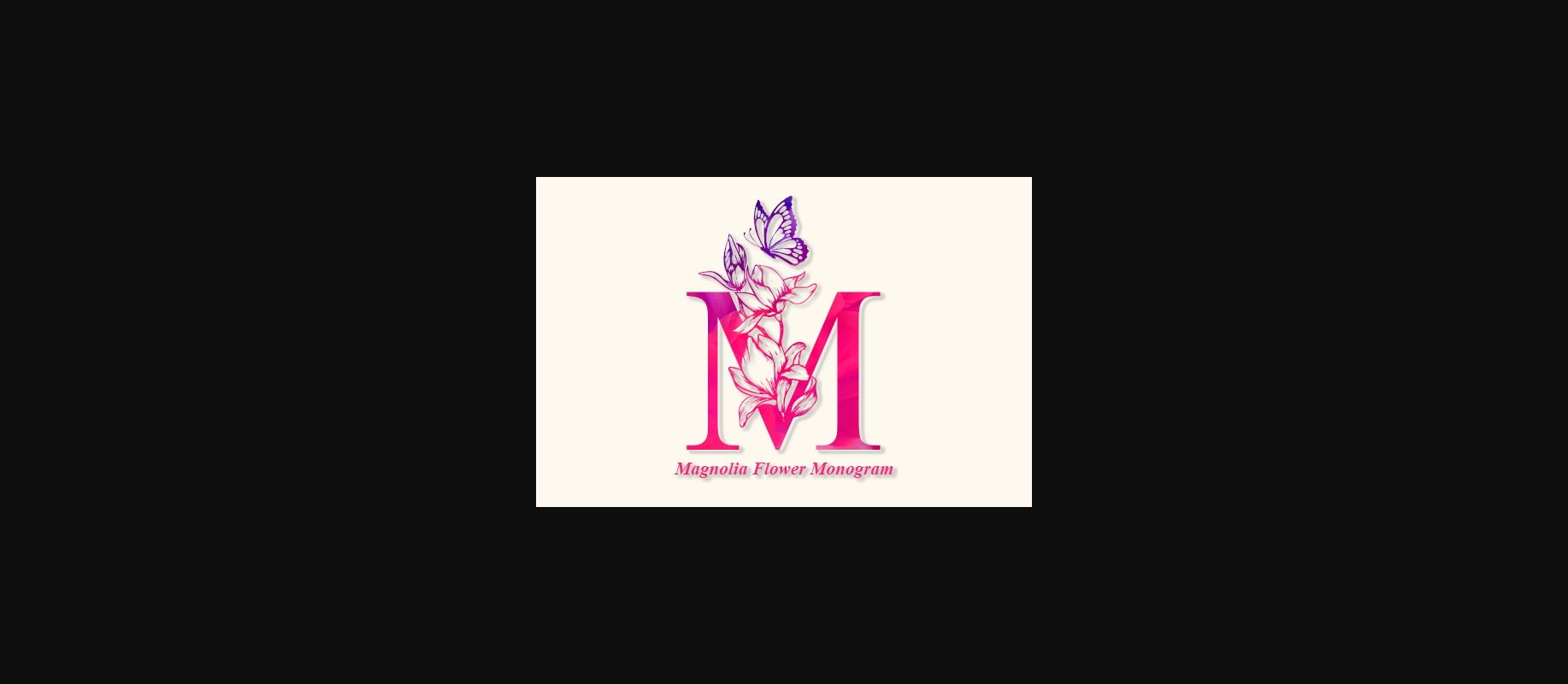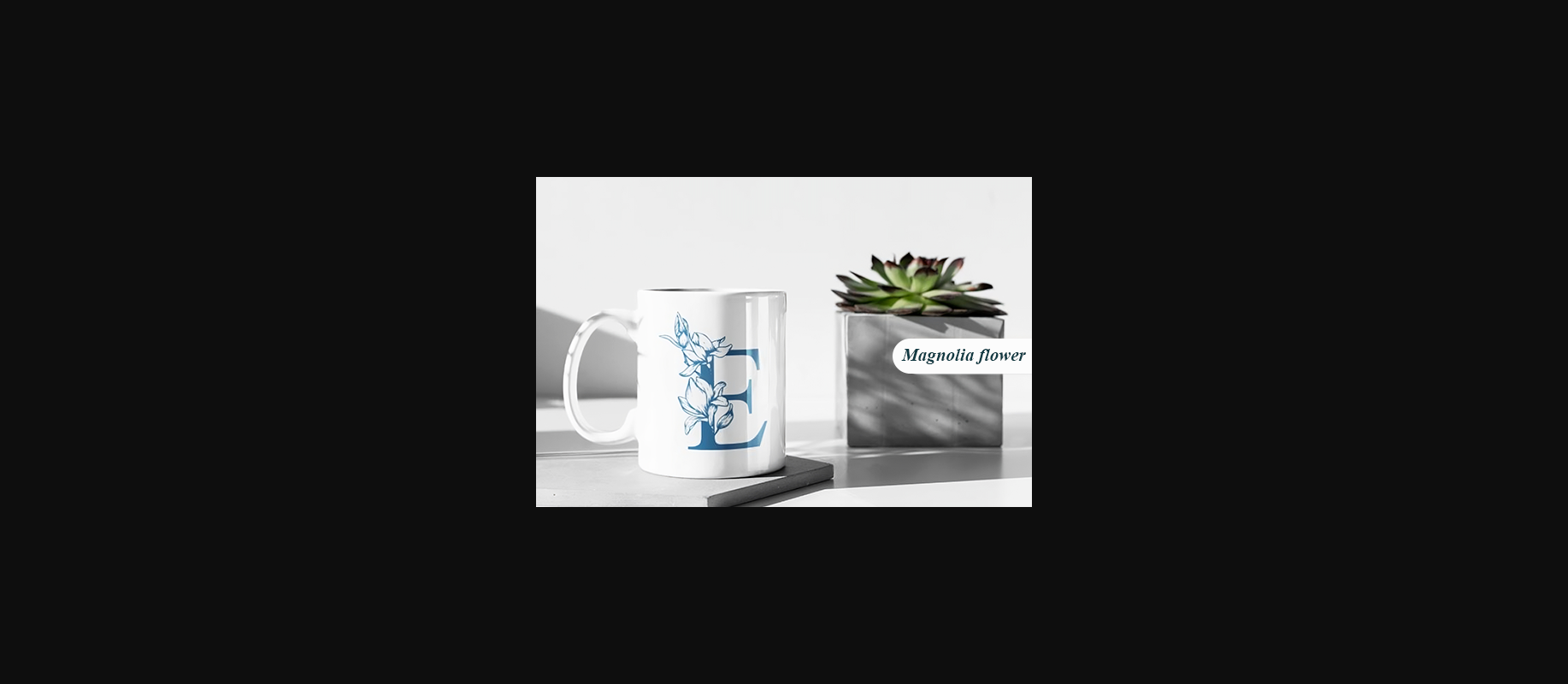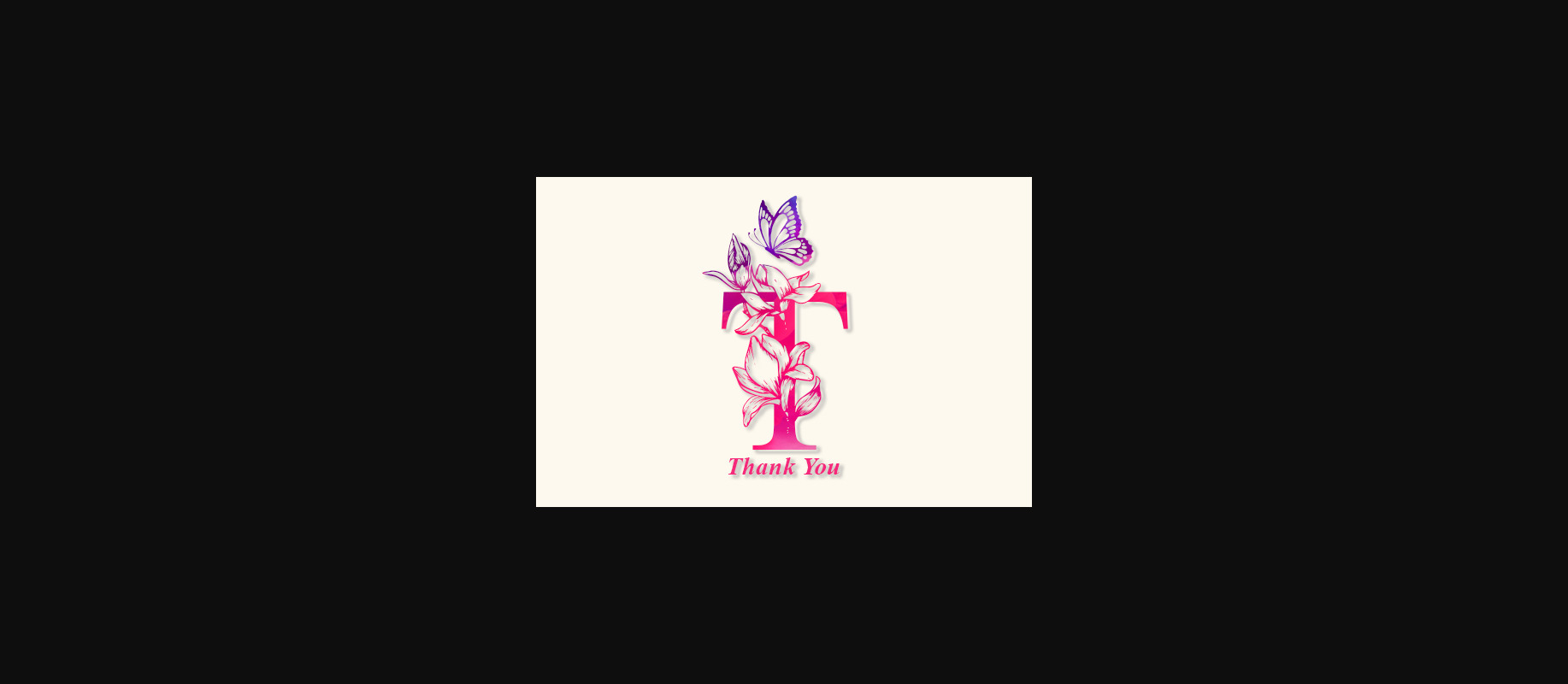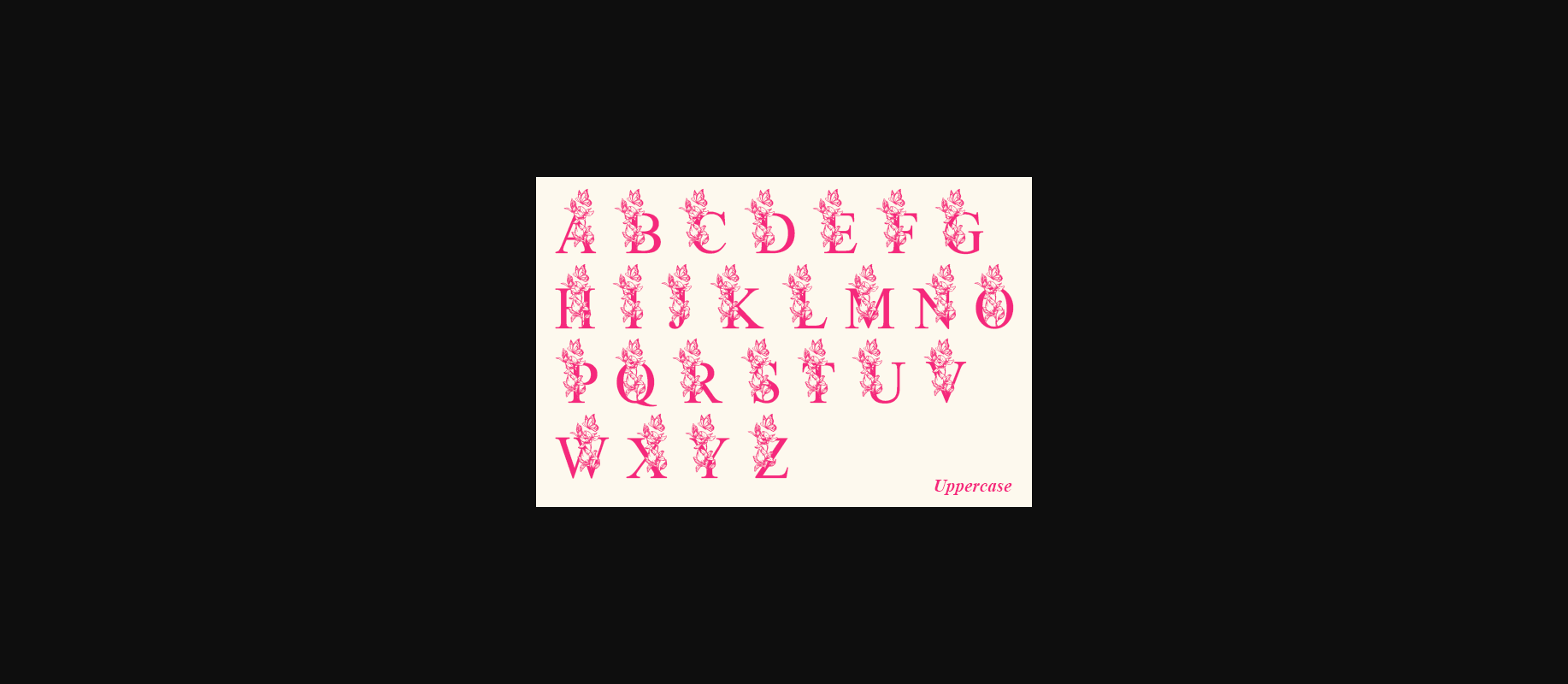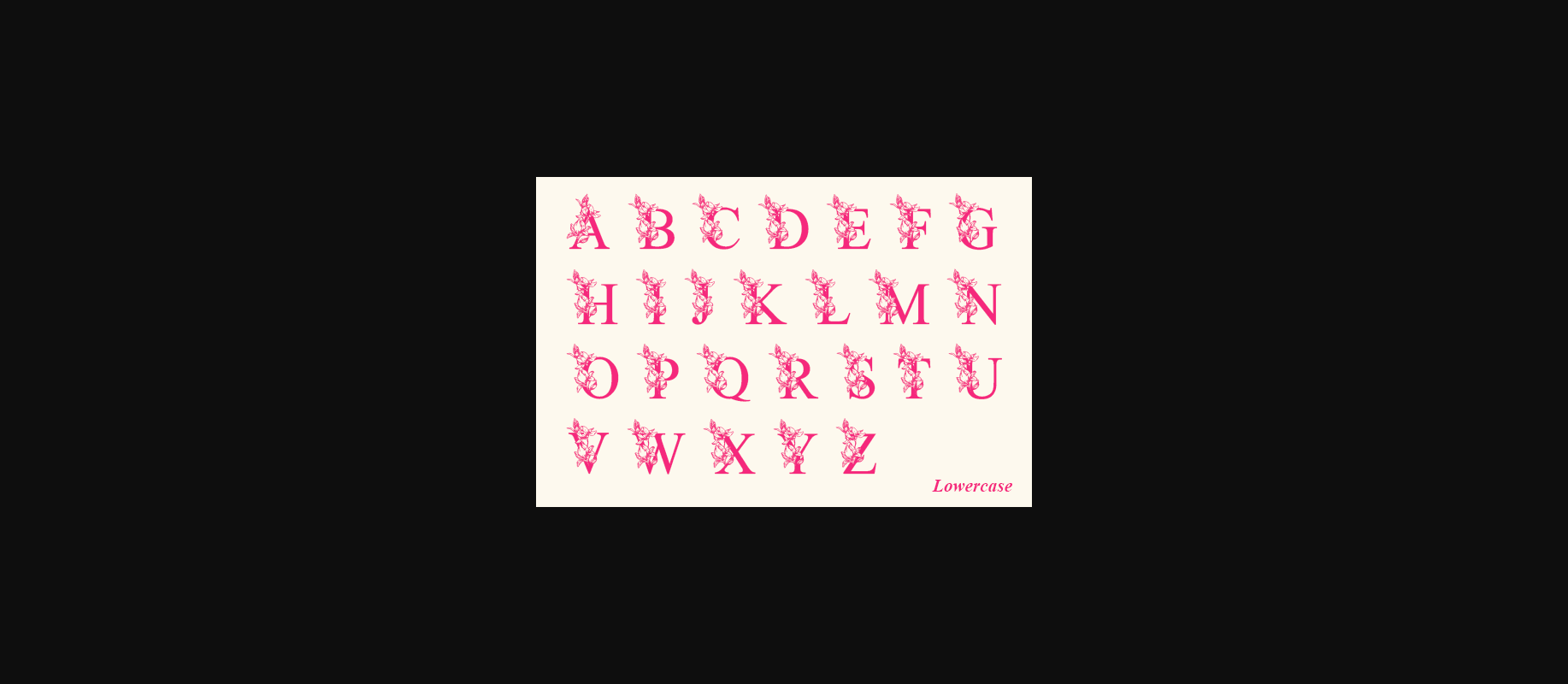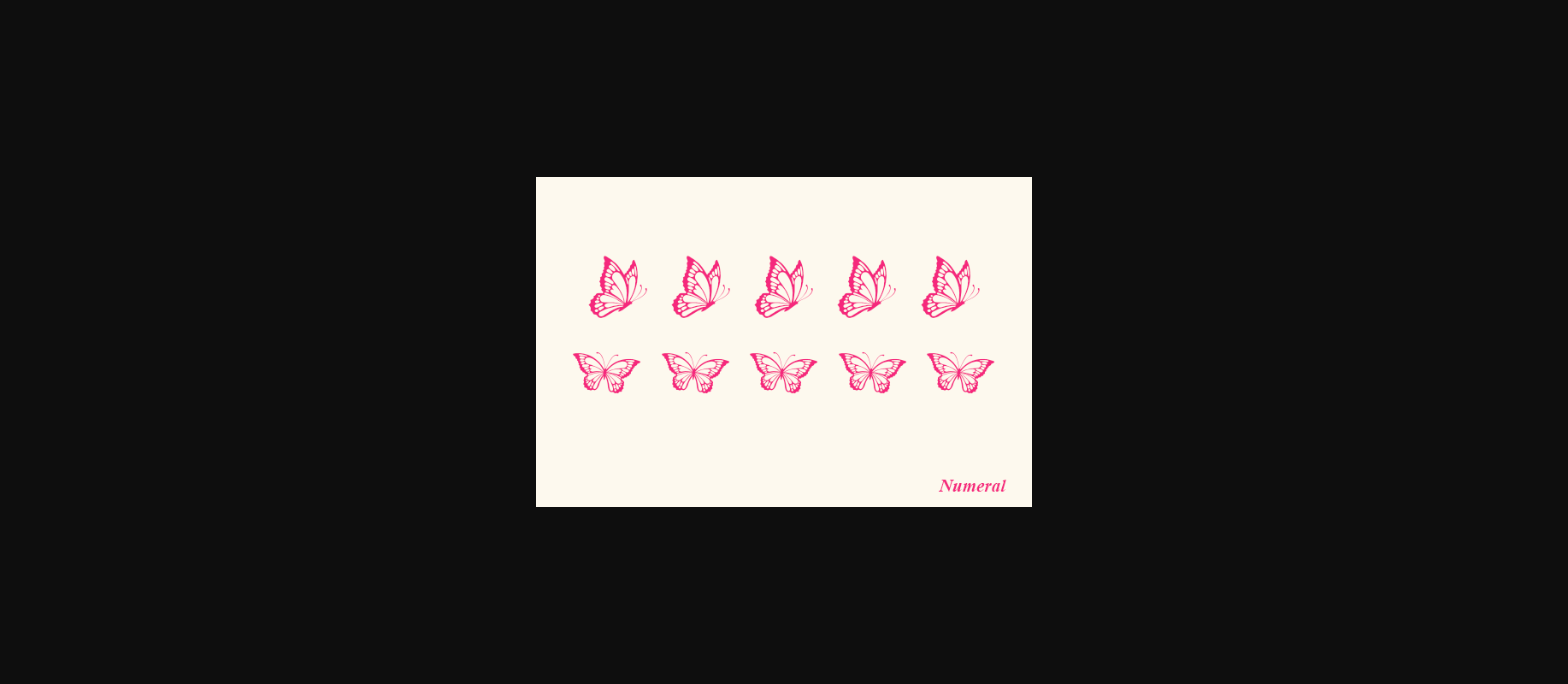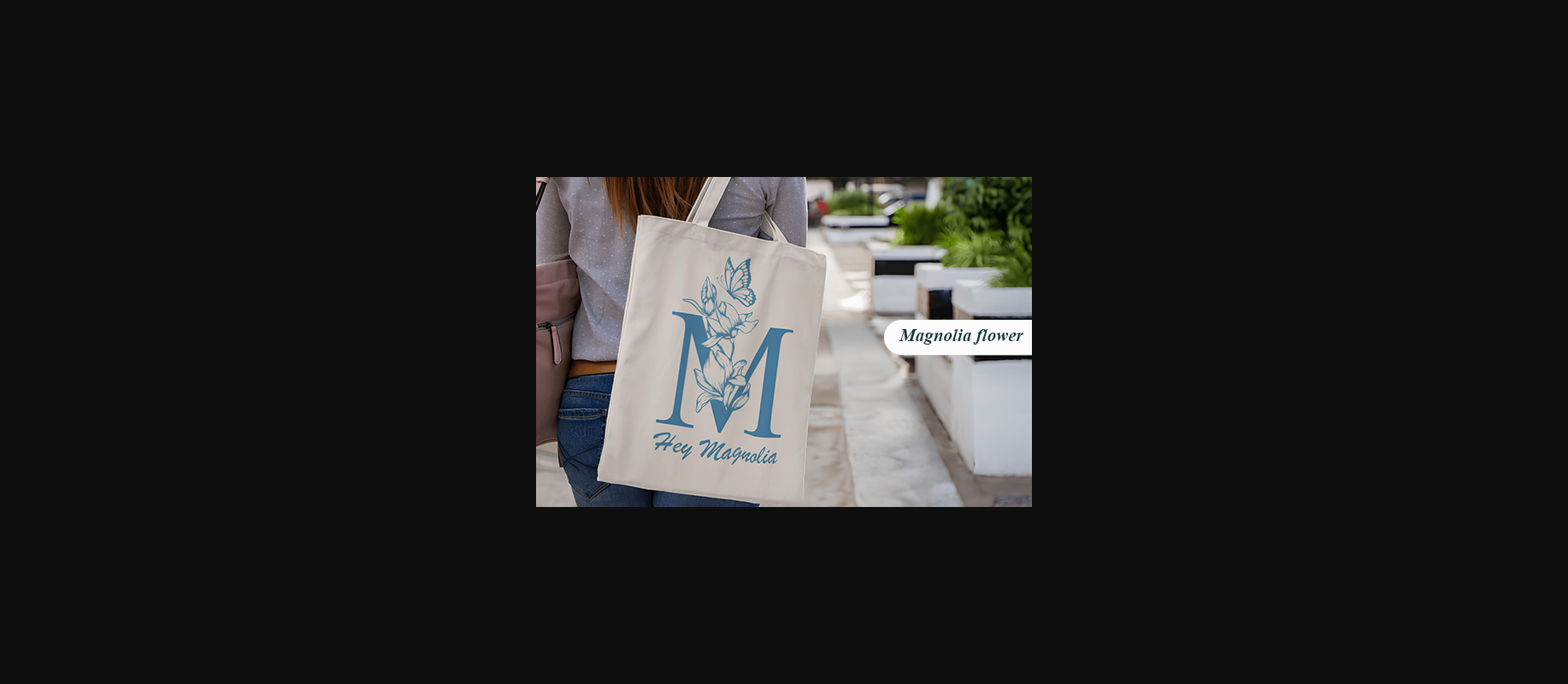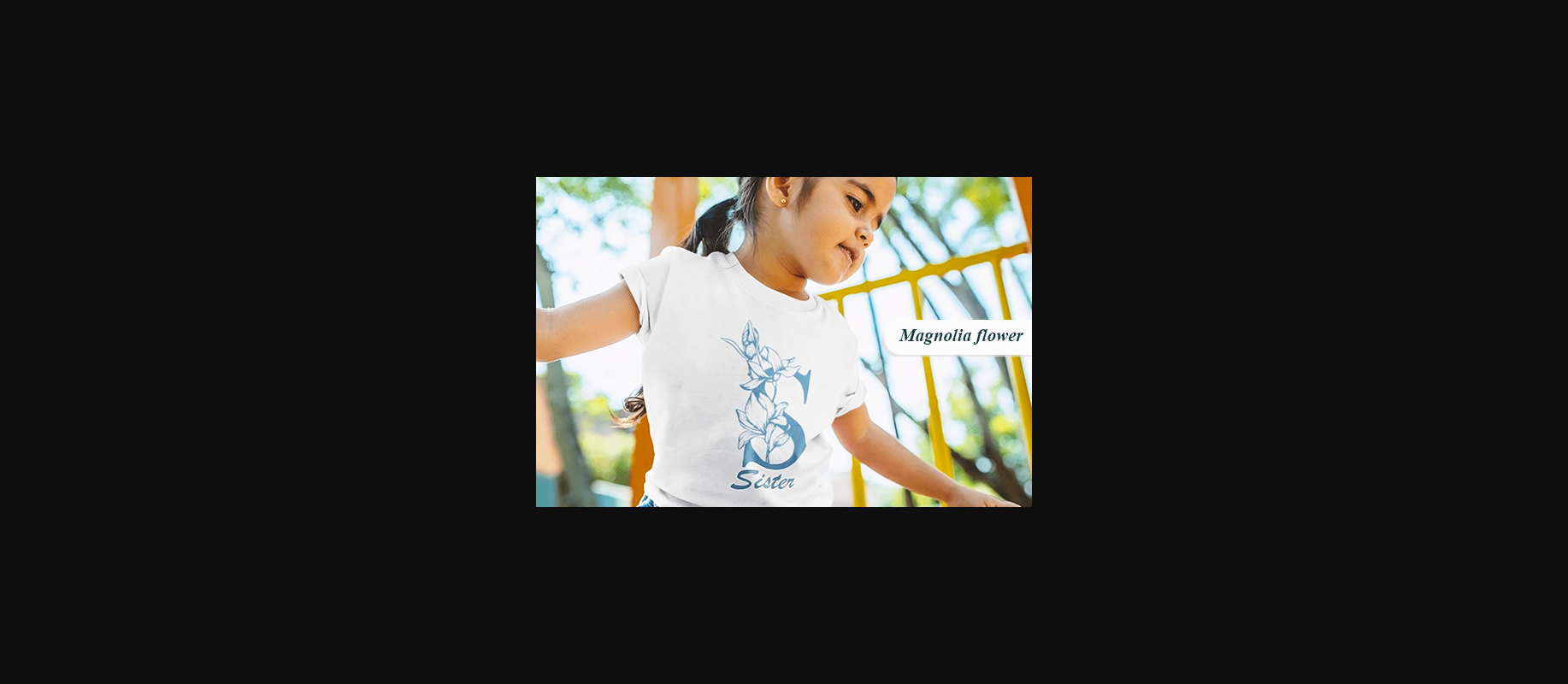
About Magnolia Flower Monogram Font
Magnolia Flower Monogram is an elegant decorative font, featuring lovely ornaments. Fall in love with its authentic feel and use it to create gorgeous wedding invitations, beautiful stationary art, eye-catching social media posts, and cute greeting cards.